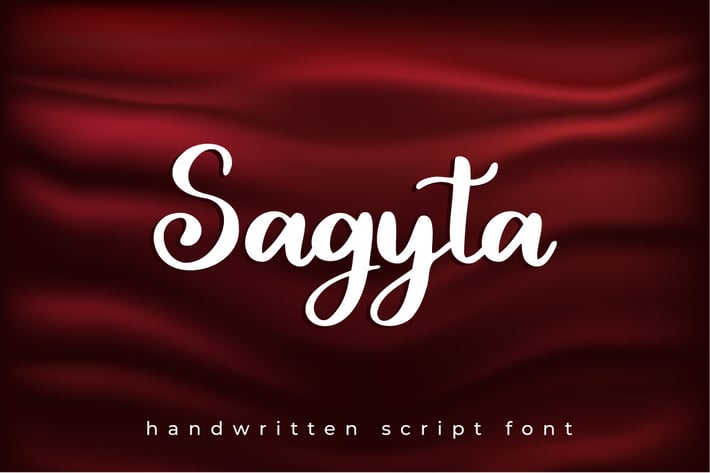
Sagyta - Handwritten Scipt Font
Hello! Sagyta is a handwritten script font.
Sagyta can be used in any works such as wedding invitation, book title, magazine logo and many more.